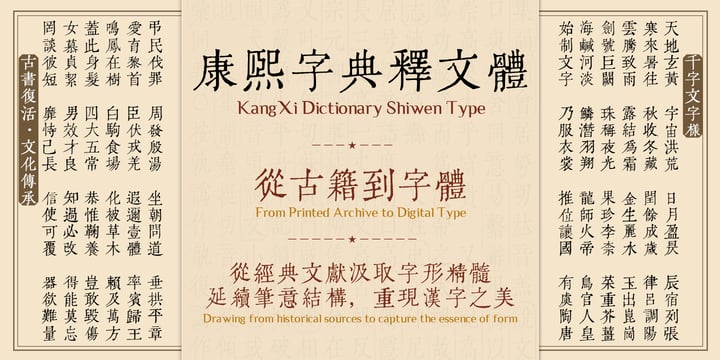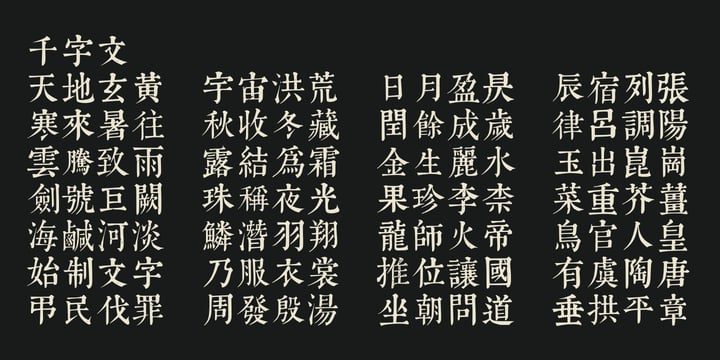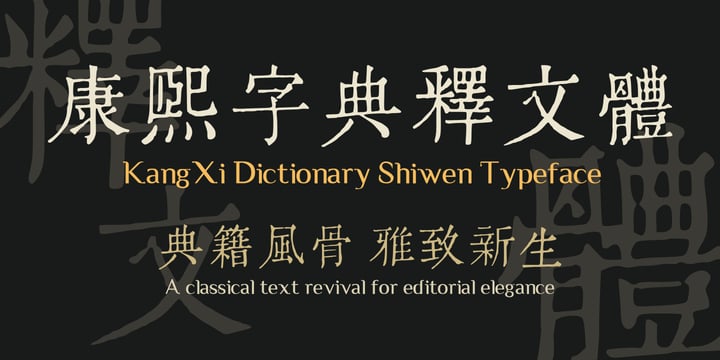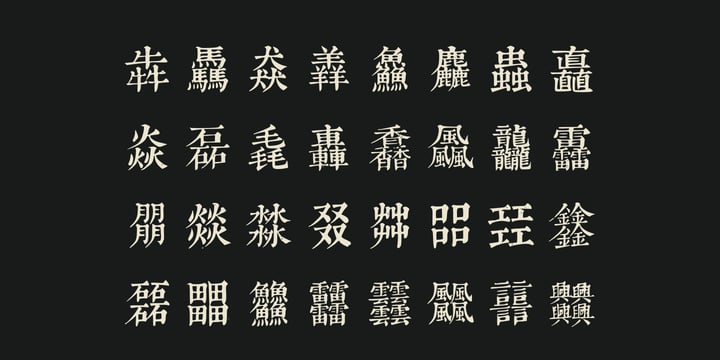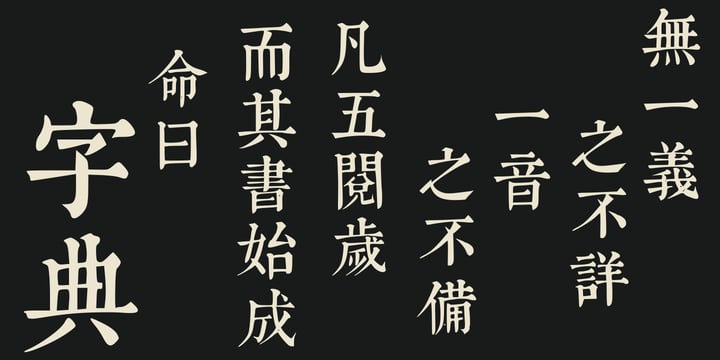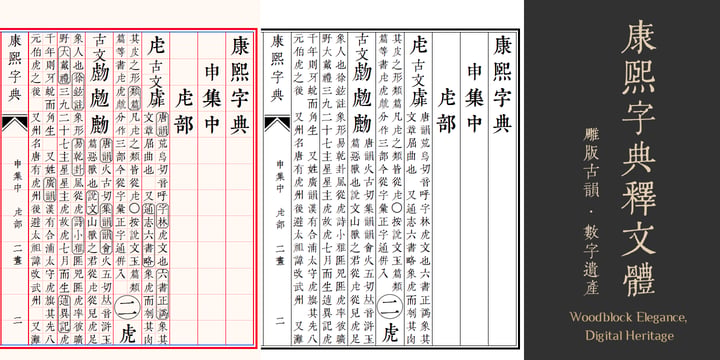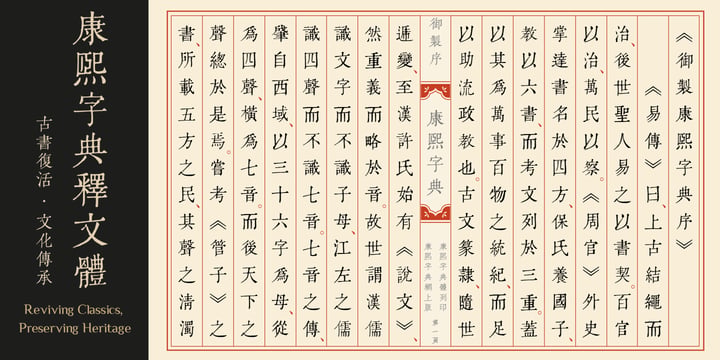
KangXi Dictionary Imperial Heritage Collection
Rediscover the elegance of the Qing Dynasty with the KangXi Dictionary Typeface project—a comprehensive digital restoration of the original Wuyingdian woodblock edition. This collection brings three centuries of imperial calligraphy into the modern design landscape.
Designed for high-end branding, editorial design, and cultural publications, this typeface balances historical authenticity with modern typographic precision. Each character reflects the authority of the "Imperial Decree" style, offering a unique aesthetic that elevates packaging, book design, and art projects.
Key Features:
Historically accurate digital restoration of the KangXi Dictionary.
Optimized for high-resolution print and screen display.
Perfect for luxury branding, tea/gourmet packaging, and premium editorial layouts.